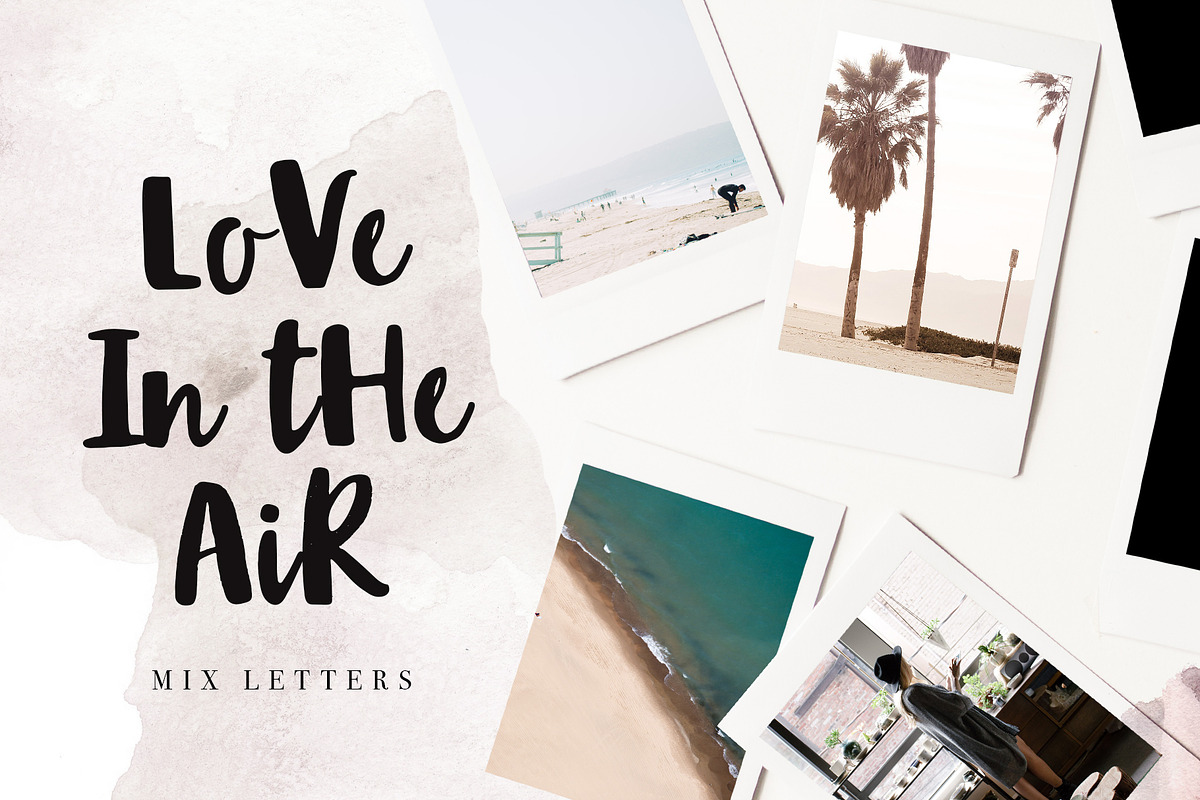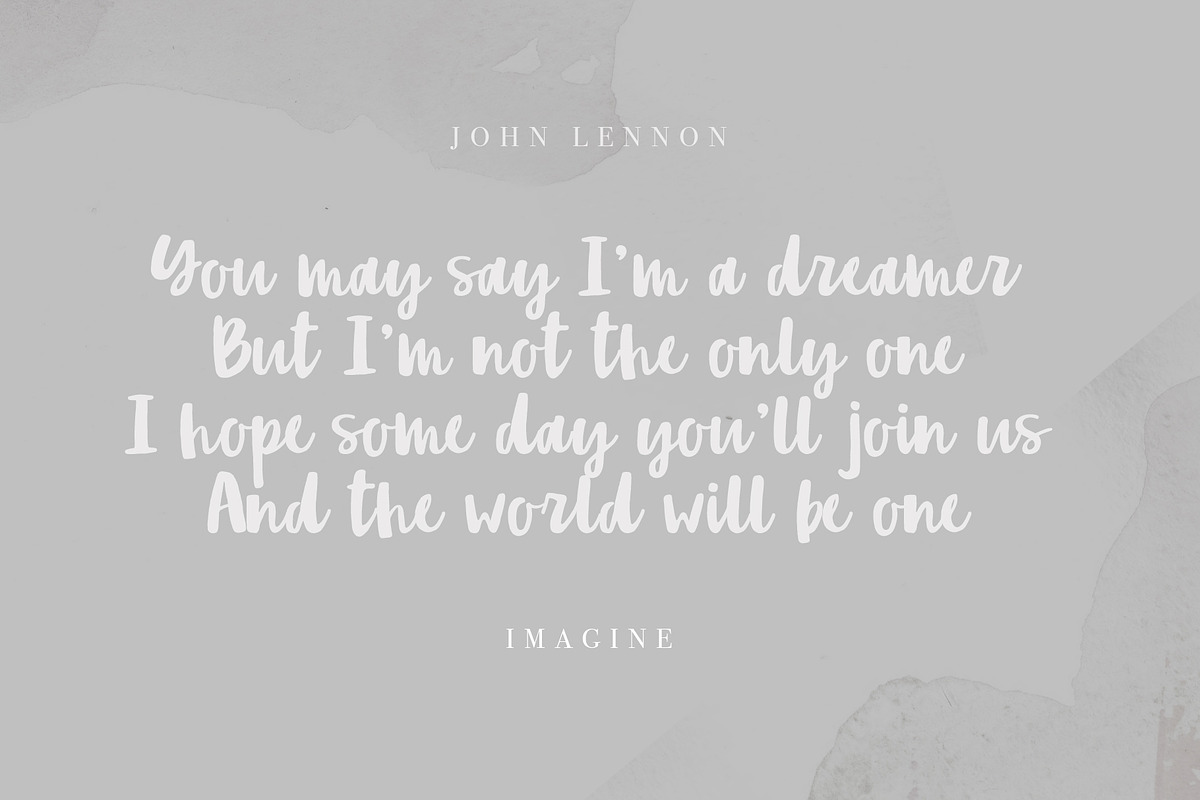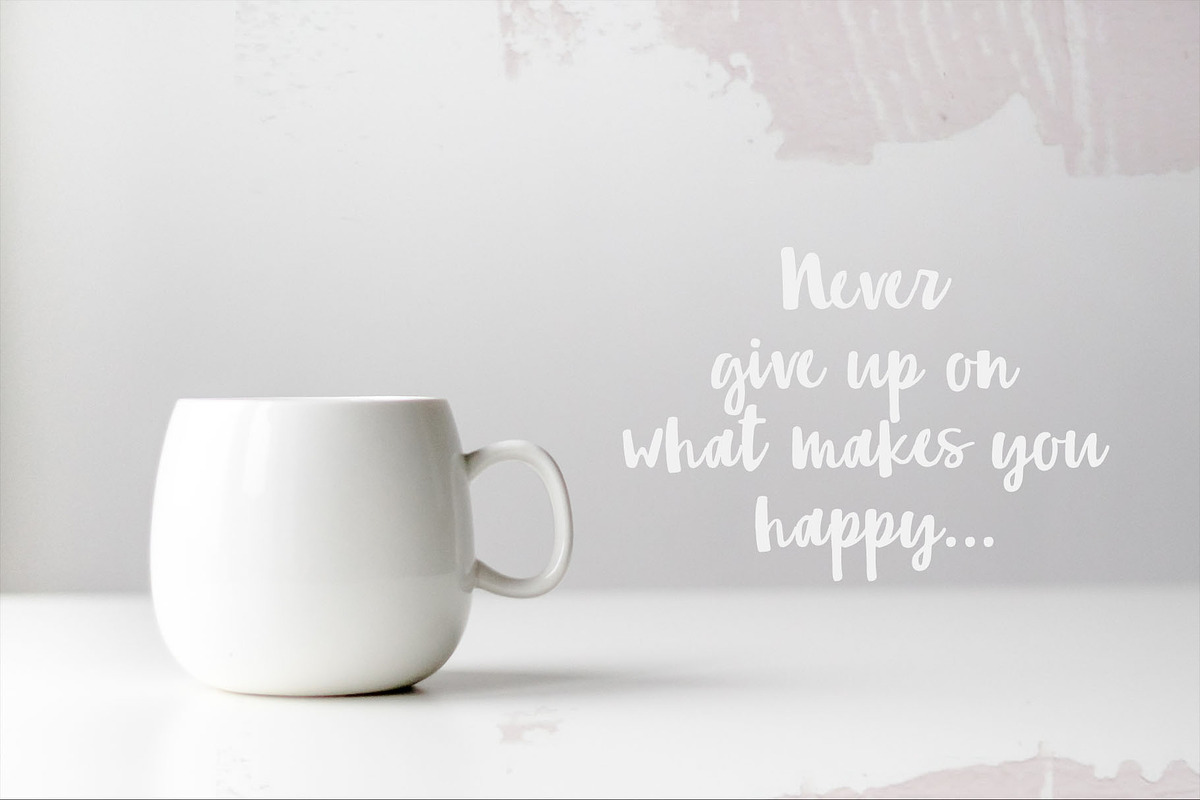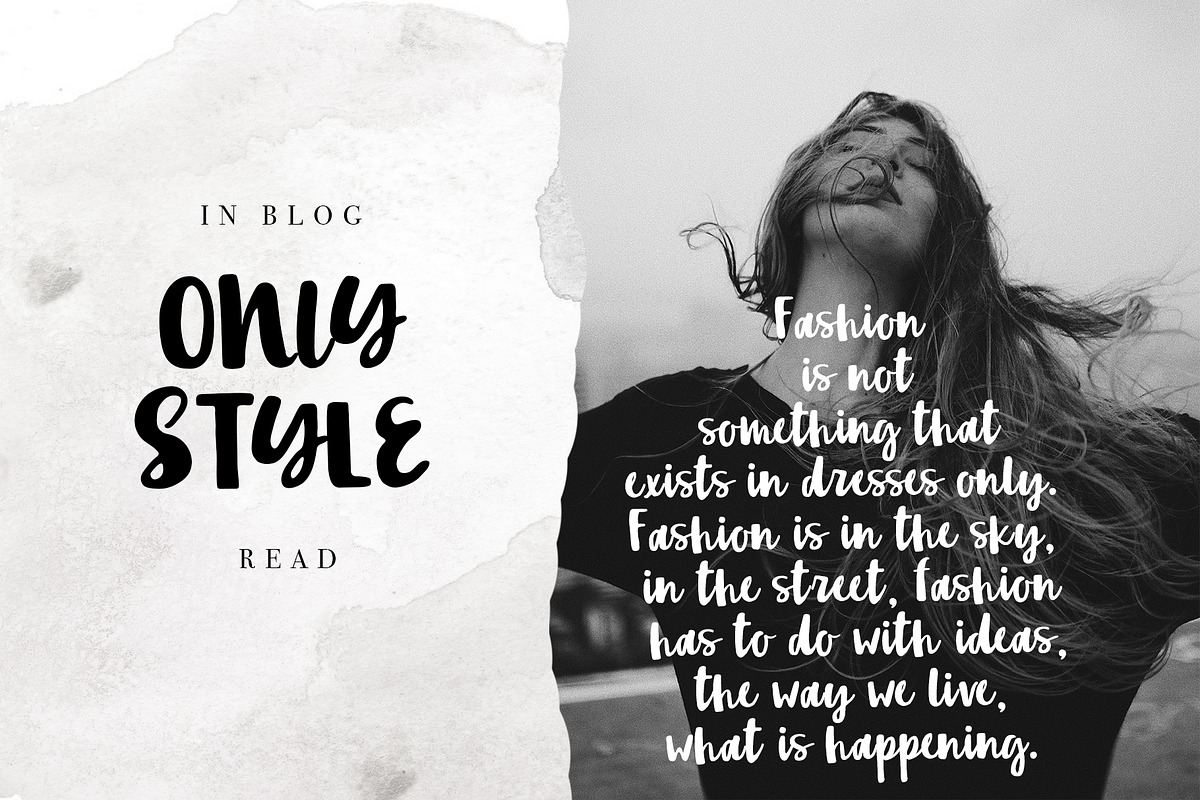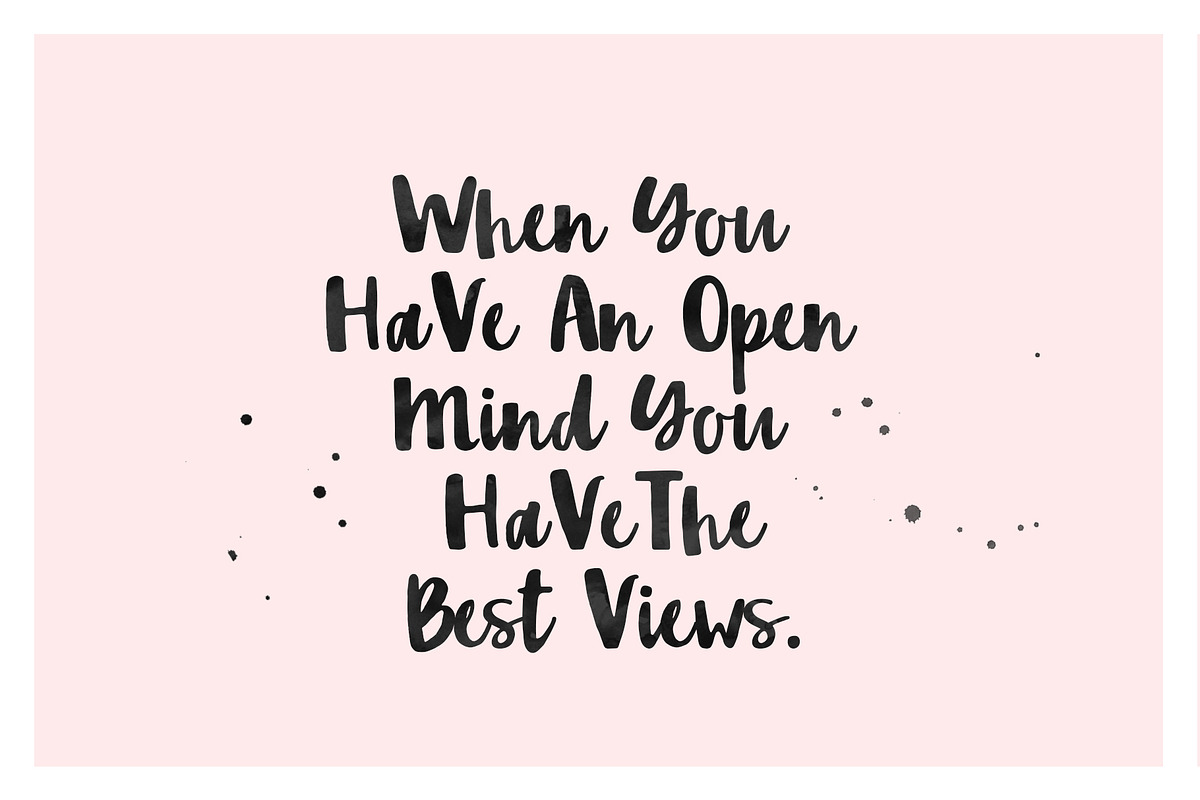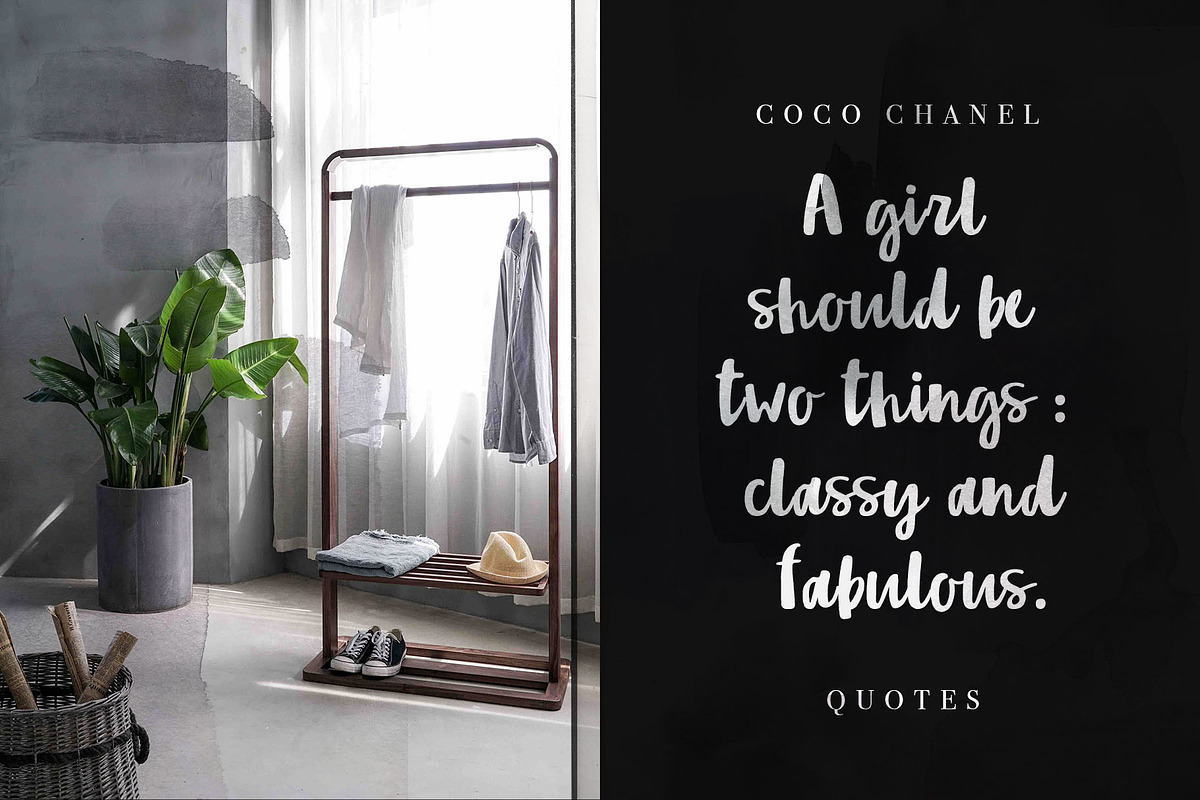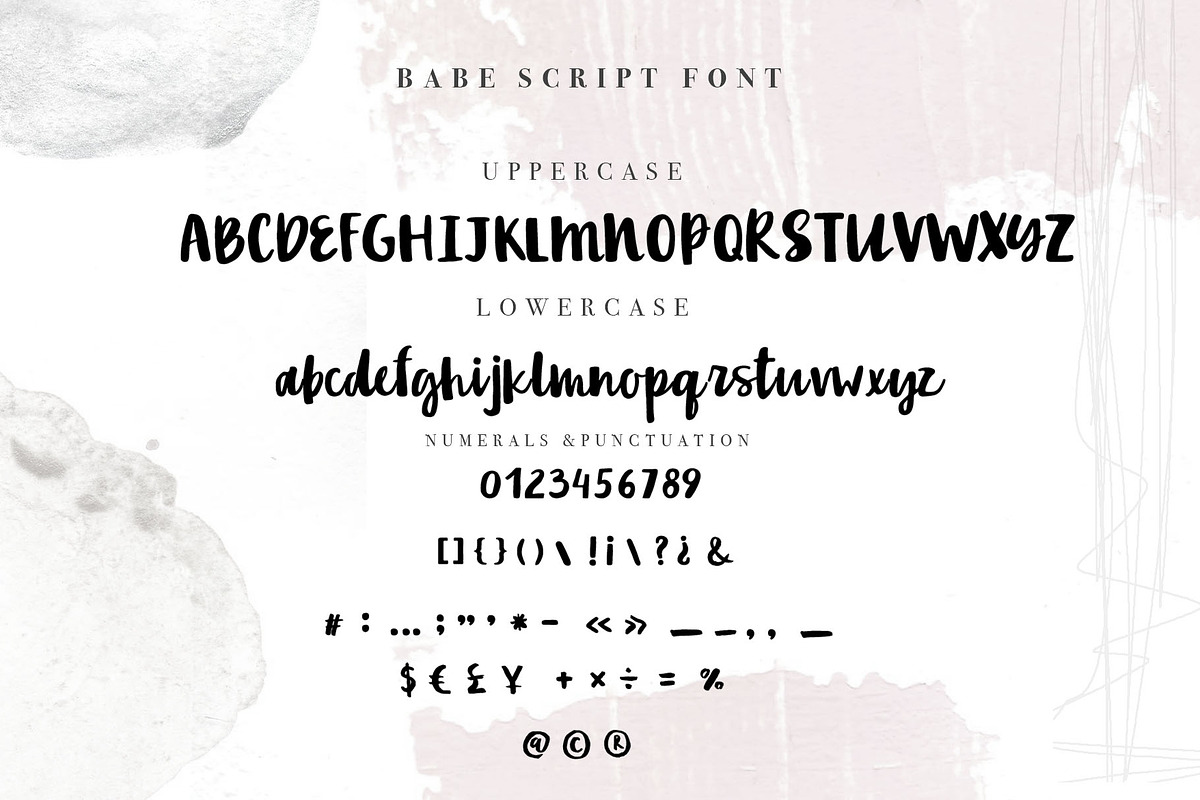
Babe Handwritten script Font
Hello! I'm happy to show you my font. He's so free, girlish, careless, hand-written. Share your favorite quotes daily. Decorate your blog, and stay free! :-)
You can mix your favorite letters in the Babe font, create unusual compositions of words each time.